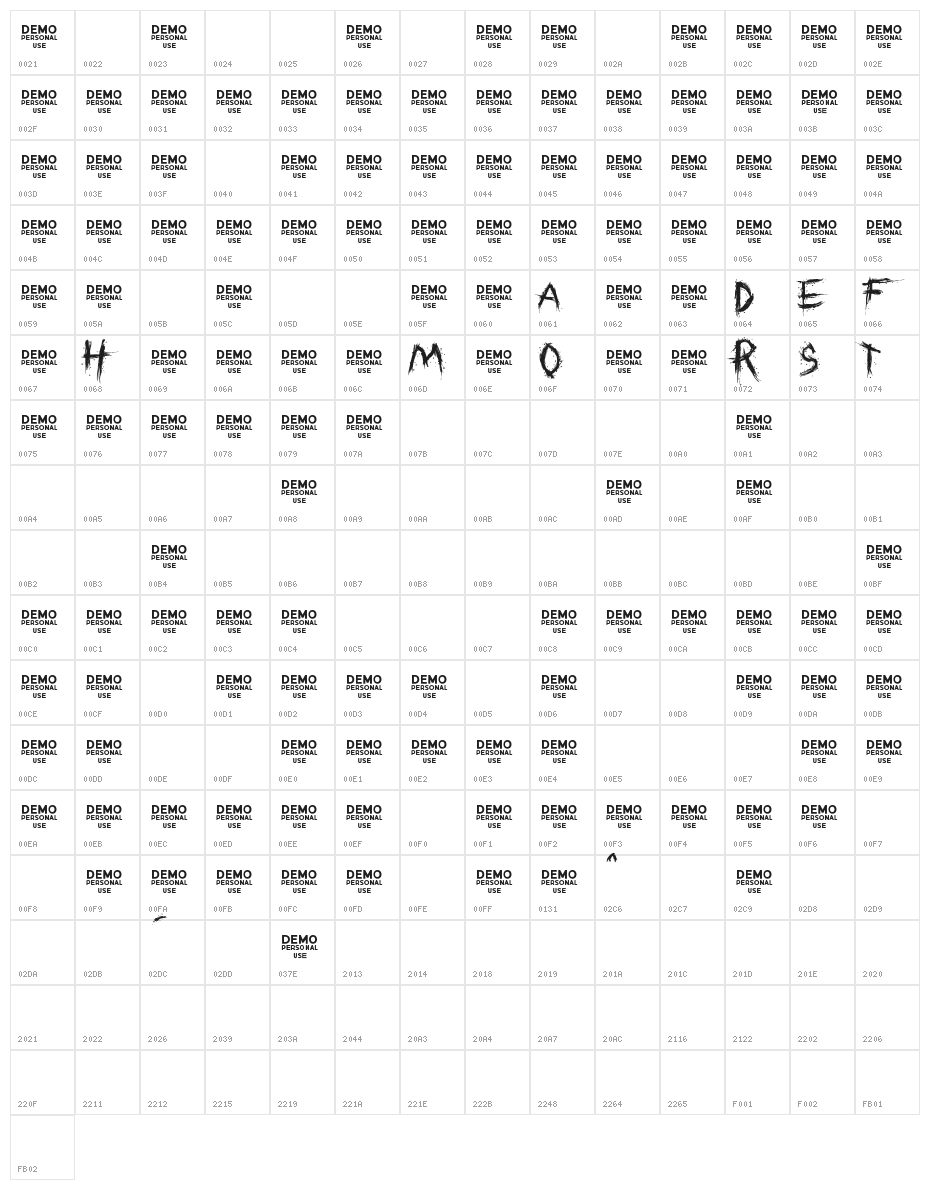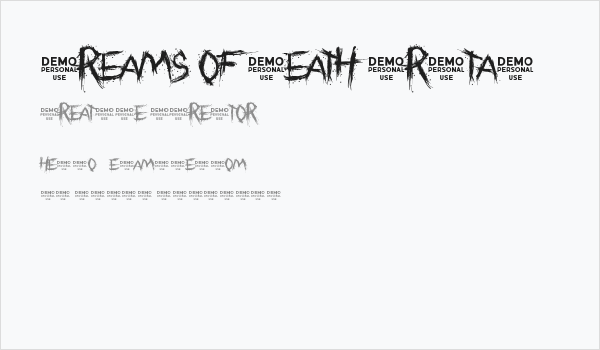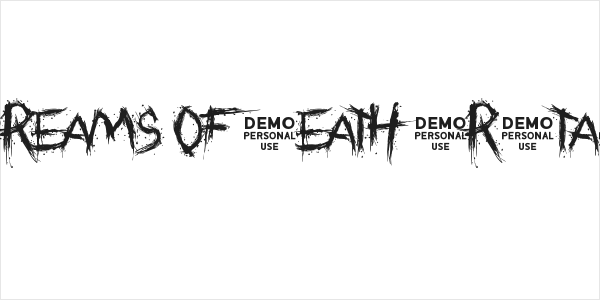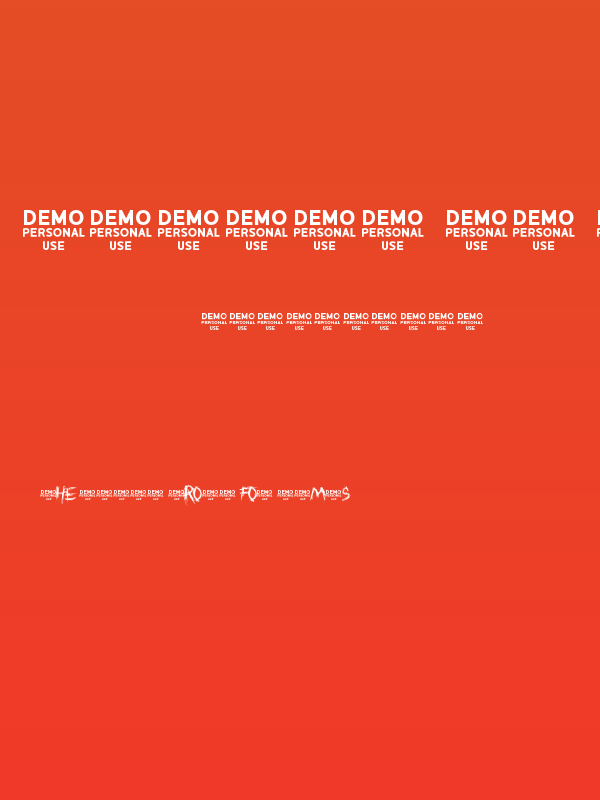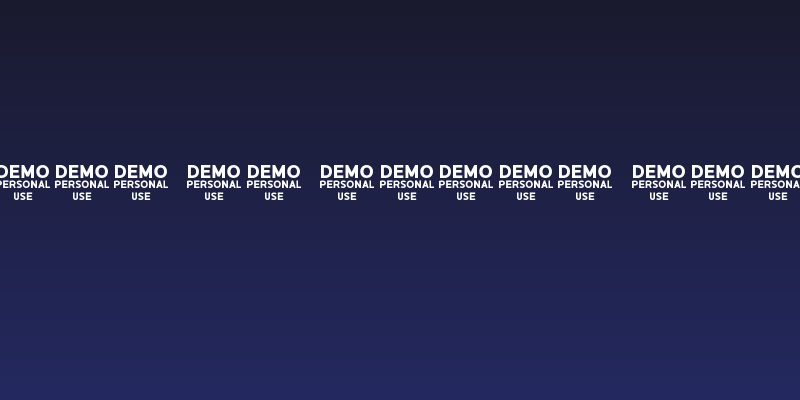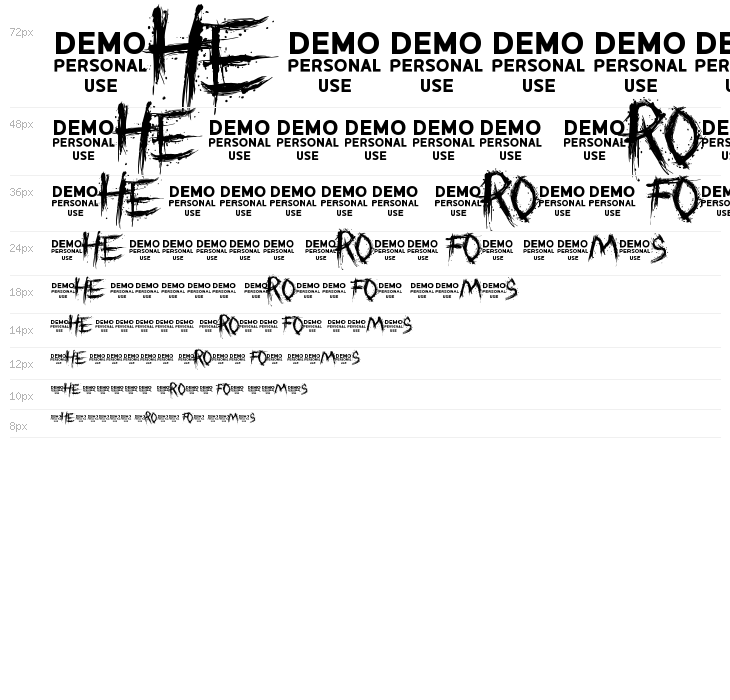
Dreams of Death Brutal Font
Dreams of Death Brutal Description
This font features a highly distressed and grungy style, reminiscent of horror or metal music themes. The characters are irregular and jagged, with splatters and rough edges that give it a chaotic and intense appearance. The uppercase letters are particularly bold and striking, while the lowercase letters maintain the same distressed aesthetic. Numbers and special characters follow the same design, ensuring consistency across all glyphs. This font is designed to evoke a sense of unease and intensity, making it suitable for projects that require a bold and edgy look.
| Overall Style | Grunge, Horror |
| Use Case | Logos, Posters, Event Flyers |
| Proposed Projects | Ideal for horror movie posters, metal band logos, Halloween event flyers, and edgy graphic design projects. |